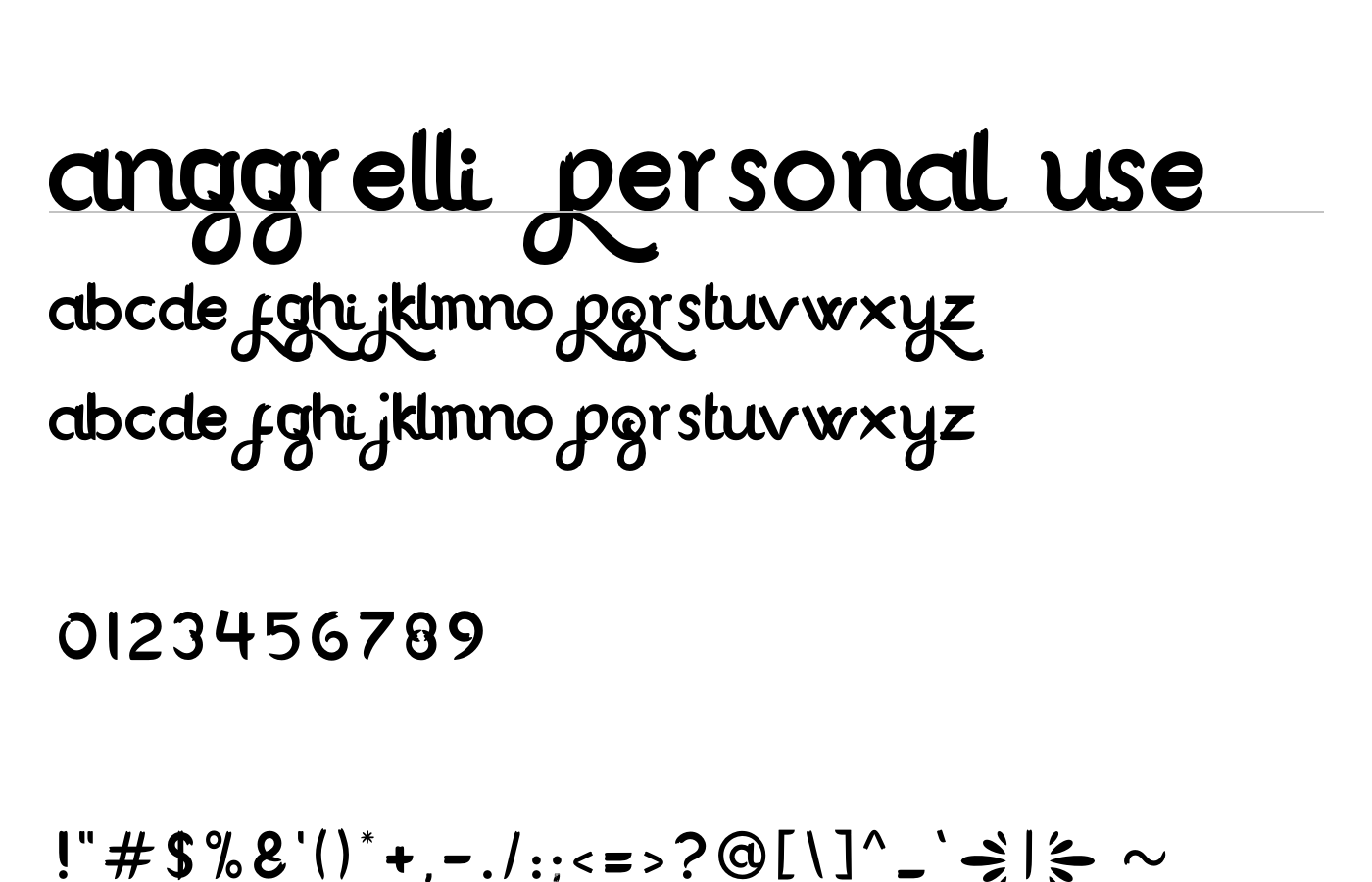
Anggrelli Personal Use Font
Anggrelli Personal Use is a playful and decorative script font featuring whimsical, rounded letterforms with charming swashes and curls. Its medium weight and moderate contrast give it a friendly, hand-drawn feel that works beautifully for invitations, personal branding, and creative projects needing a warm, approachable vibe. This font is ideal for adding a touch of personality and elegance to headlines, packaging, or logos that seek a unique, artistic flair.